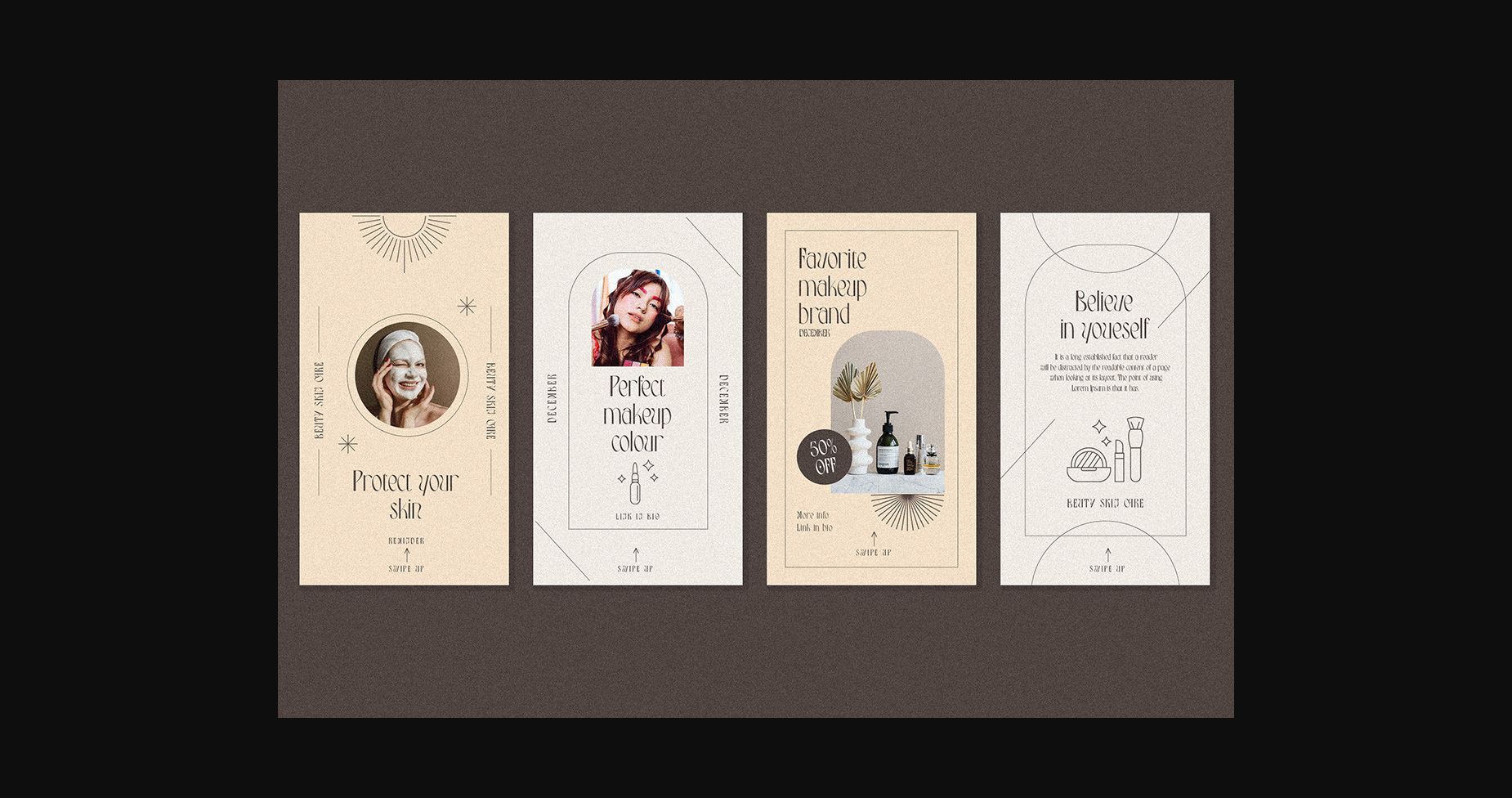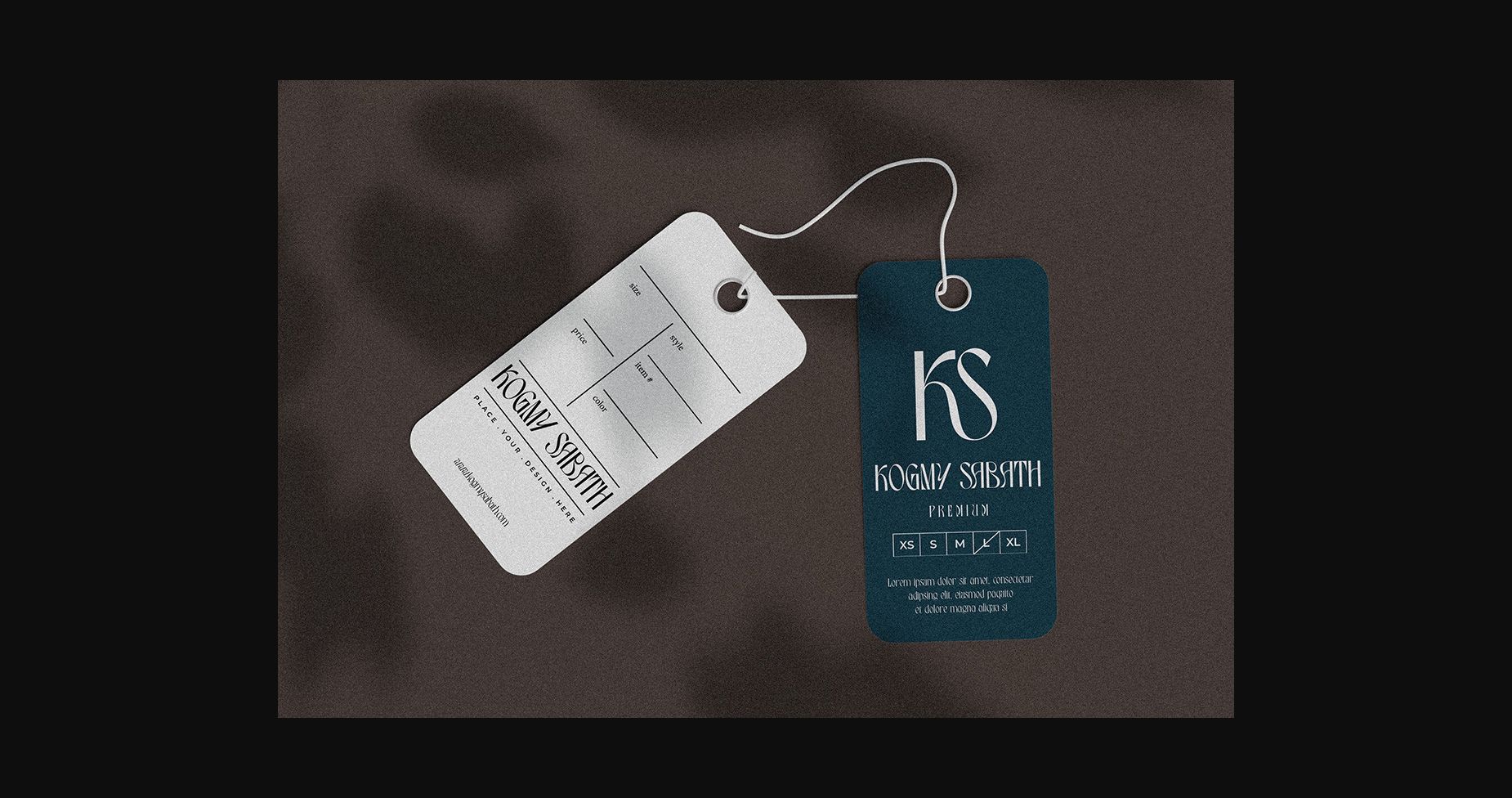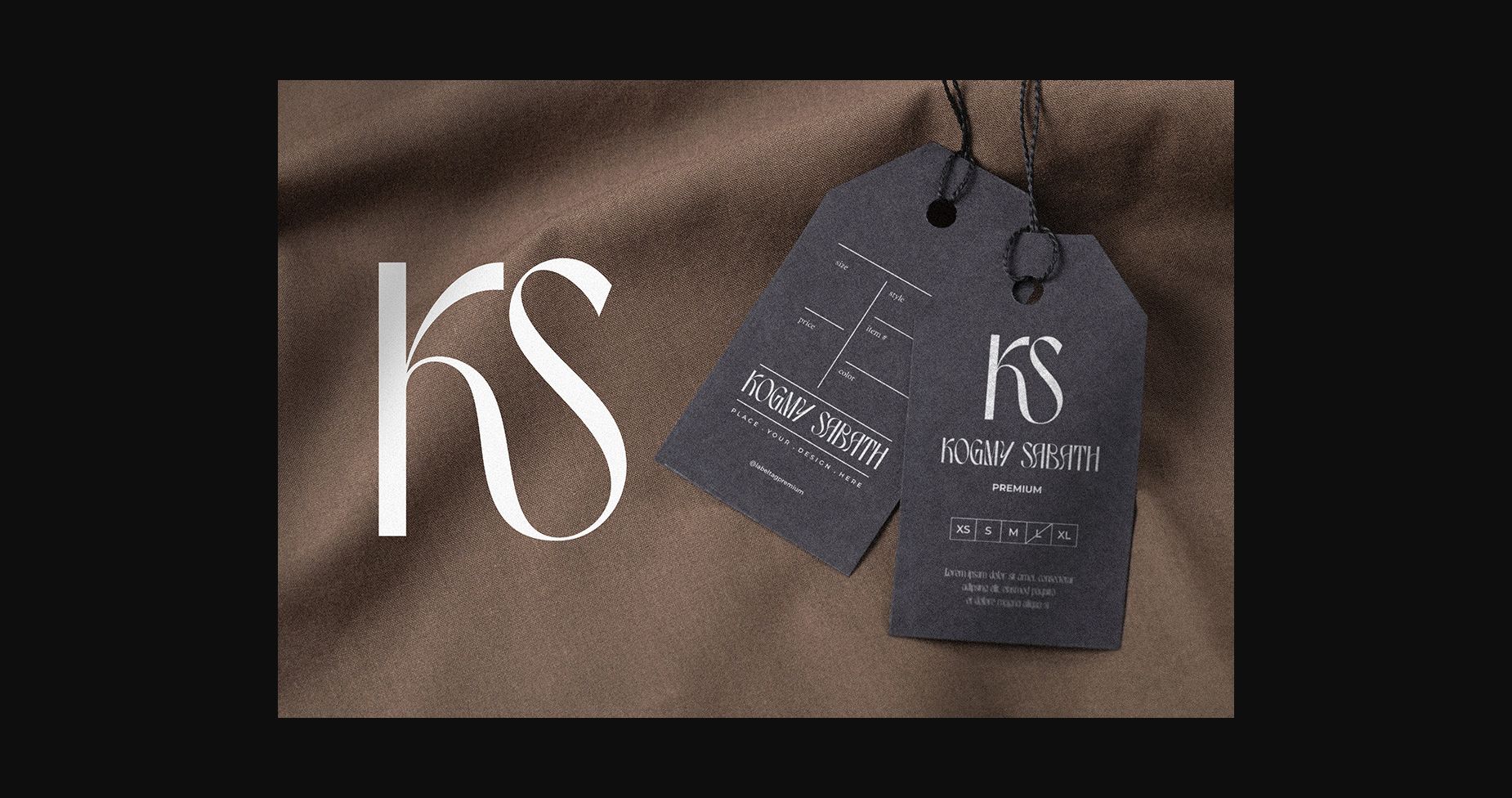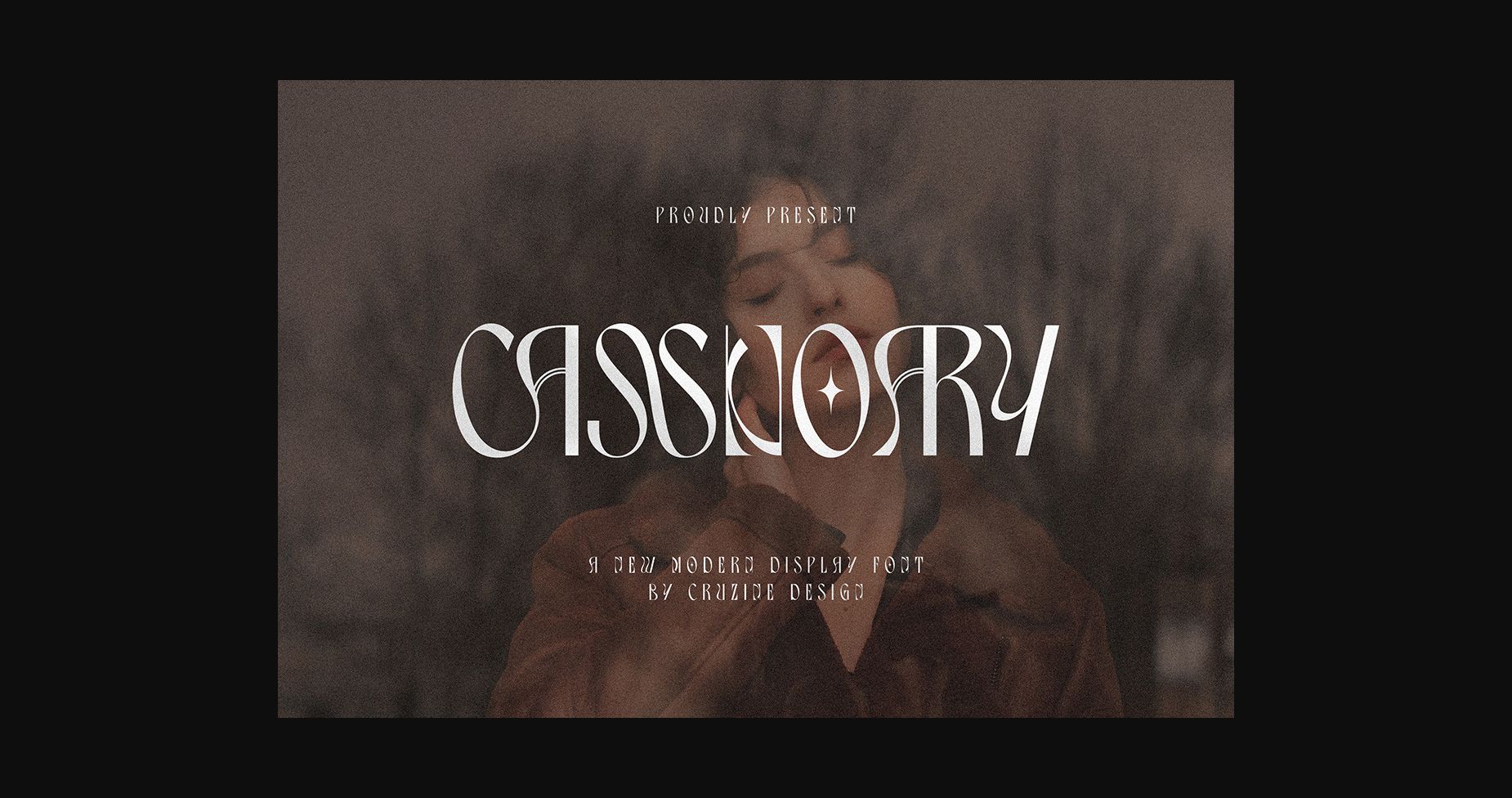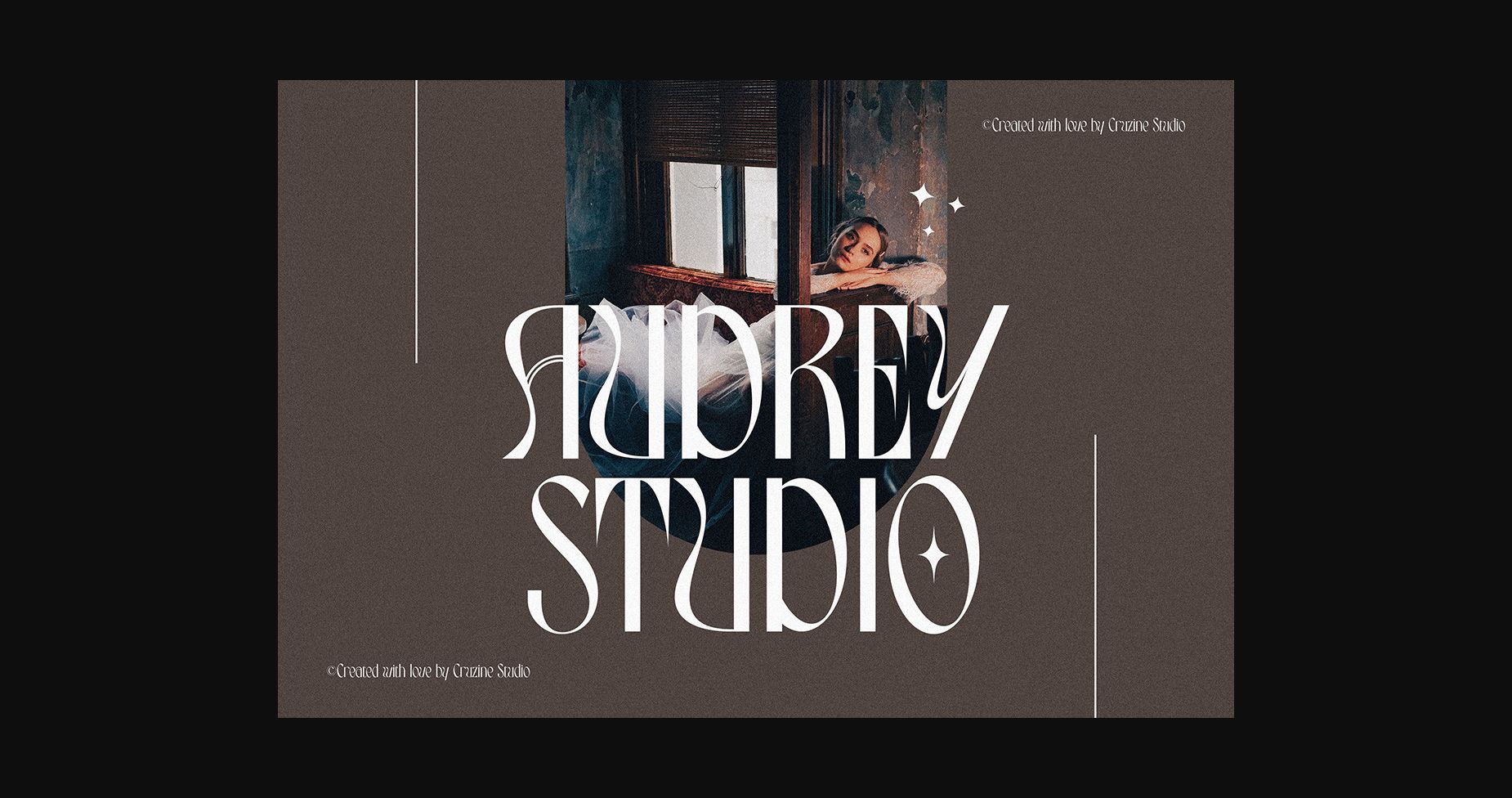
About Cassnoary Font
Cassnoary is the new exclusive serif font and is the epitome of style and sophistication. Its clean, sharp lines and elegant curves create a timeless look that’s perfect for modern designs. Ideal for high-end branding and editorial layouts, this font exudes luxury and refinement. Elevate your designs to the next level with this must-have font.